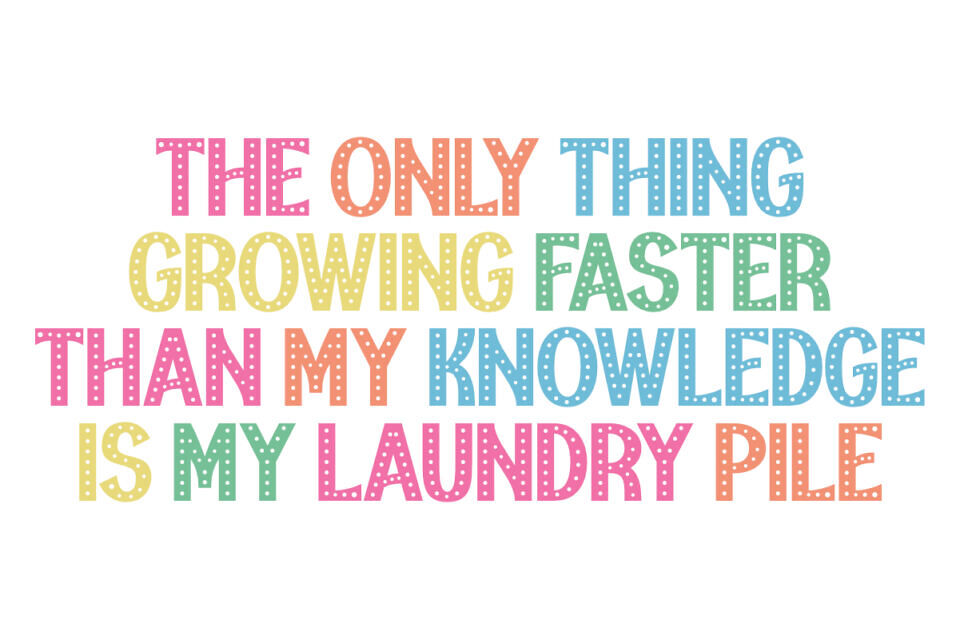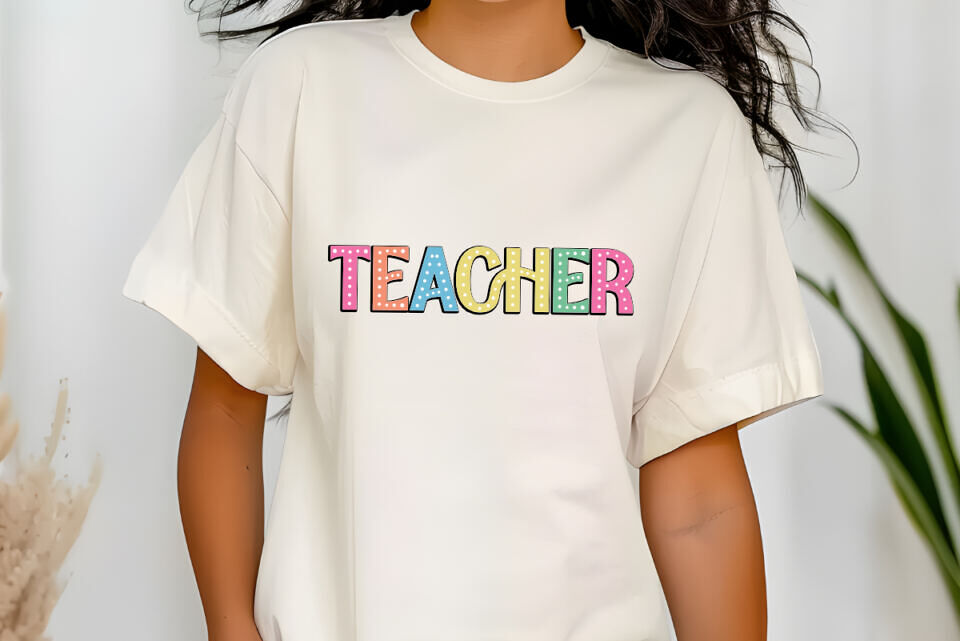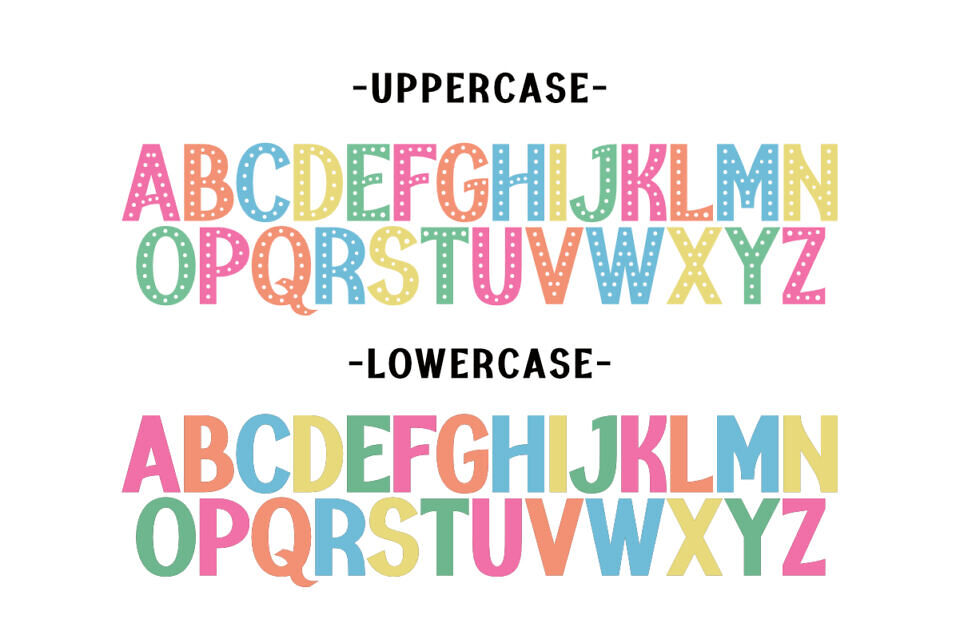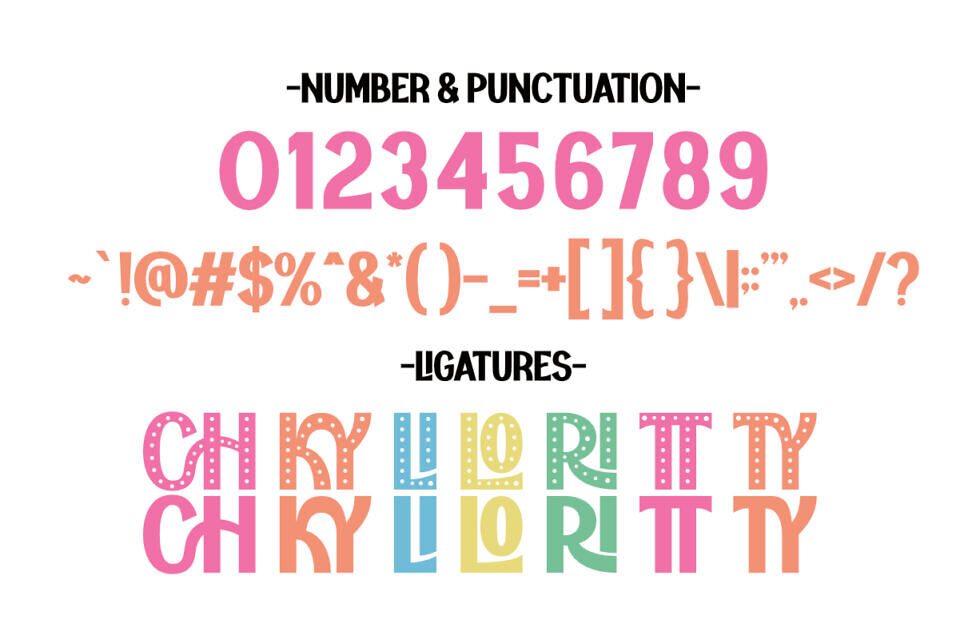
Chunky Student is a colorful, playful, and bold display font designed to bring joy and creativity to your back-to-school projects! With its chunky letterforms and dotted texture, this font is perfect for kid-friendly designs, teacher resources, and school-themed merch.
Whether you’re designing vibrant classroom signs, student name tags, cute lunchbox labels, or fun sublimation prints for t-shirts and tote bags, Chunky Student makes your designs pop with personality. It’s a favorite among Cricut crafters and Etsy sellers creating products for teachers, students, and homeschool moms.
Perfect for: back to school SVGs, teacher t-shirts, student name labels, kids’ school supplies, school sublimation mugs, sticker designs, bulletin board letters, classroom decor, personalized backpacks, and colorful school-themed digital products.